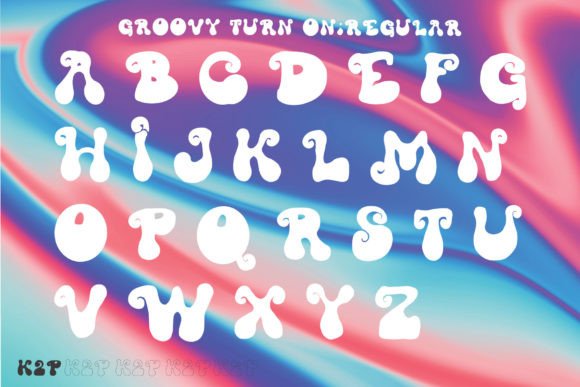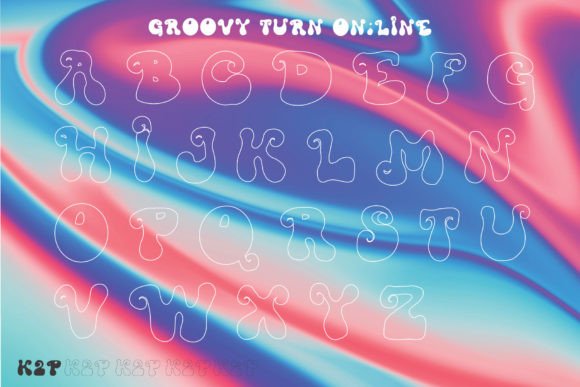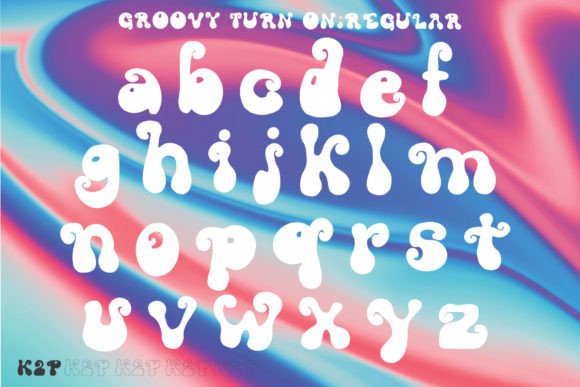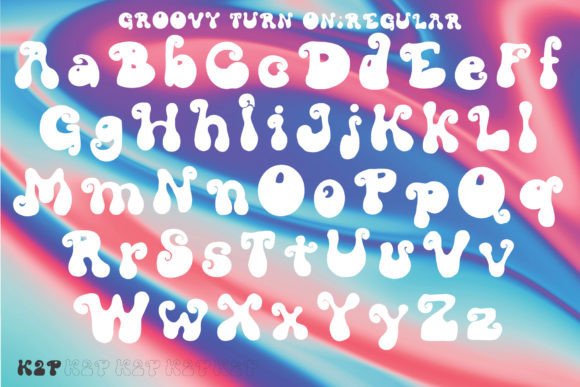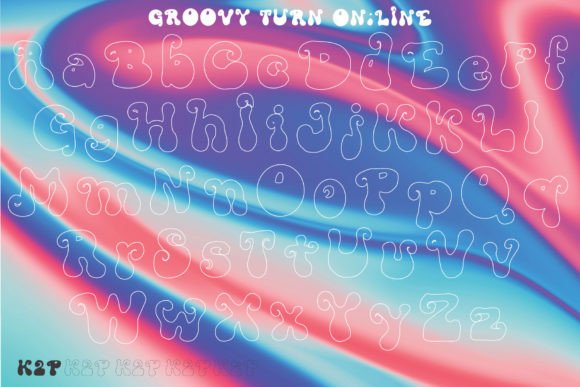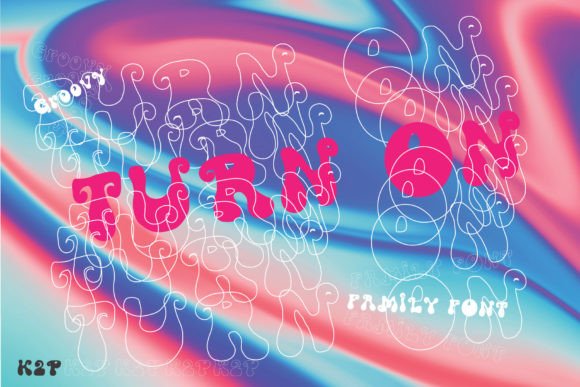
Groovy Turn on Font: Elevate Your Designs with a Retro Twist
Are you ready to add a dash of nostalgia to your designs? Look no further than the Groovy Turn on Font, a fun, retro, and whimsical display font that’s sure to capture the hearts of designers and crafters alike. With its incredibly distinct and timeless style, this font is perfect for creating spectacular designs that stand out from the crowd.
The Charm of Groovy Turn on Font
Groovy Turn on Font is a one-of-a-kind typeface that embodies the spirit of the 1960s and 1970s. Its unique blend of curves, swirls, and bold lines creates a visually striking effect that’s reminiscent of vintage posters, psychedelic art, and retro advertisements. Whether you’re designing a logo, a poster, or a digital graphic, this font is sure to add a touch of playfulness and personality to your work.
Key Features of Groovy Turn on Font
• Distinctive style: Groovy Turn on Font boasts an unmistakable style that’s sure to grab attention.
• Retro vibe: This font is perfect for designers who love the nostalgia of the 1960s and 1970s.
• Whimsical feel: The font’s playful curves and swirls add a touch of whimsy to any design.
• Timeless appeal: Despite its retro roots, Groovy Turn on Font has a timeless quality that ensures it will remain stylish for years to come.
Uses for Groovy Turn on Font
Groovy Turn on Font is incredibly versatile, making it suitable for a wide range of design projects. Here are some ideas to get you started:
• Logos and branding: Use Groovy Turn on Font to create a memorable logo that stands out from the competition.
• Posters and flyers: Add a retro twist to your posters and flyers with this eye-catching font.
• Digital graphics: Use Groovy Turn on Font to create stunning digital graphics, such as social media posts, blog headers, and more.
• Crafting and scrapbooking: This font is perfect for crafters and scrapbookers who want to add a touch of nostalgia to their projects.
Tips for Using Groovy Turn on Font
To get the most out of Groovy Turn on Font, here are some tips to keep in mind:
• Use it sparingly: While Groovy Turn on Font is incredibly eye-catching, it can be overwhelming if used excessively. Use it sparingly to create a focal point in your design.
• Pair it with complementary fonts: Combine Groovy Turn on Font with simpler fonts to create visual interest and balance.
• Experiment with colors: The font’s retro vibe lends itself perfectly to bold, bright colors. Don’t be afraid to experiment and find the perfect color scheme for your design.
Groovy Turn on Font is a unique and captivating display font that’s sure to add a touch of retro charm to your designs. With its distinctive style, whimsical feel, and timeless appeal, this font is perfect for designers and crafters who want to create spectacular designs that stand out from the crowd. So why wait? Fall in love with Groovy Turn on Font and take your designs to the next level!